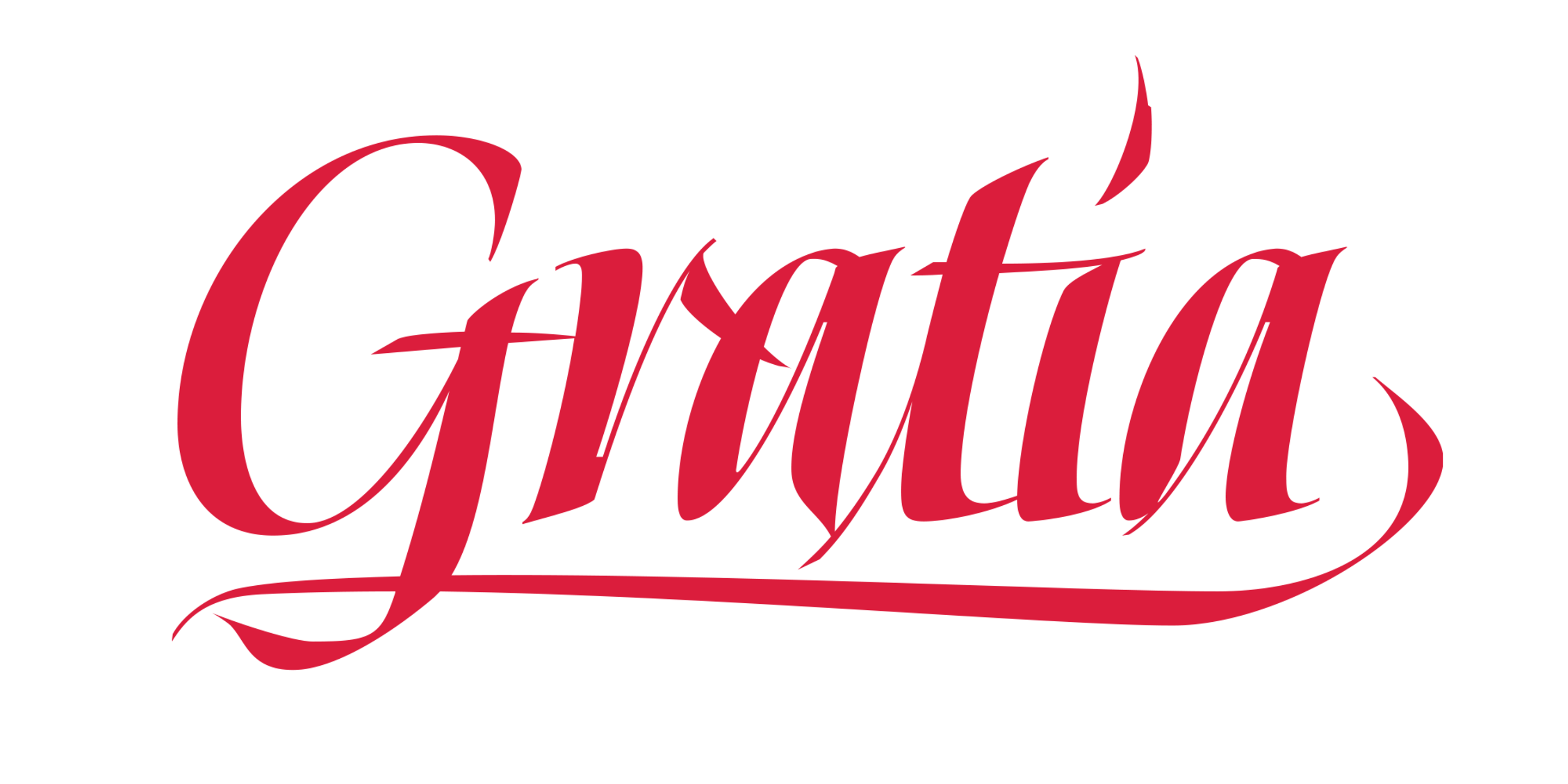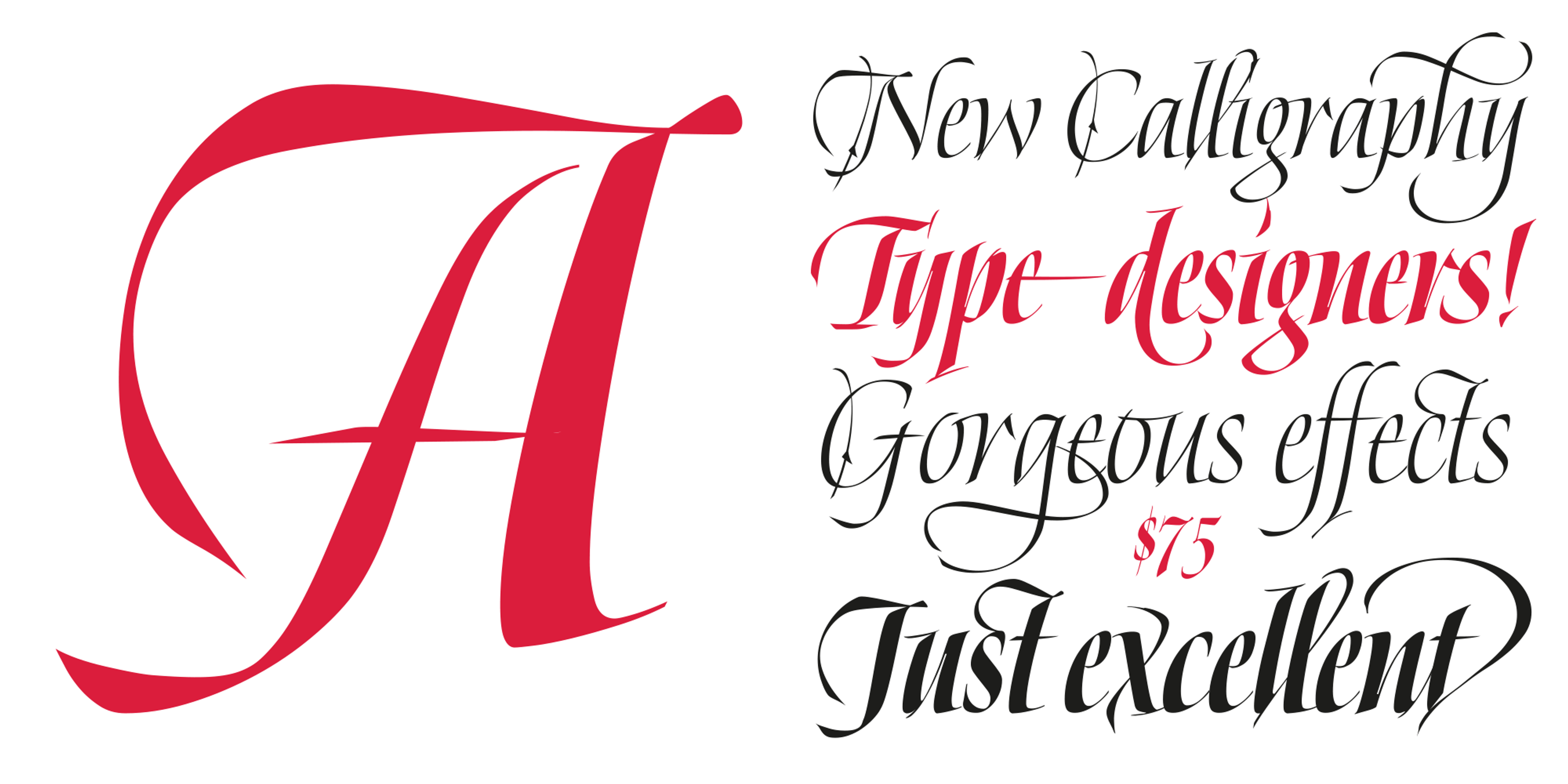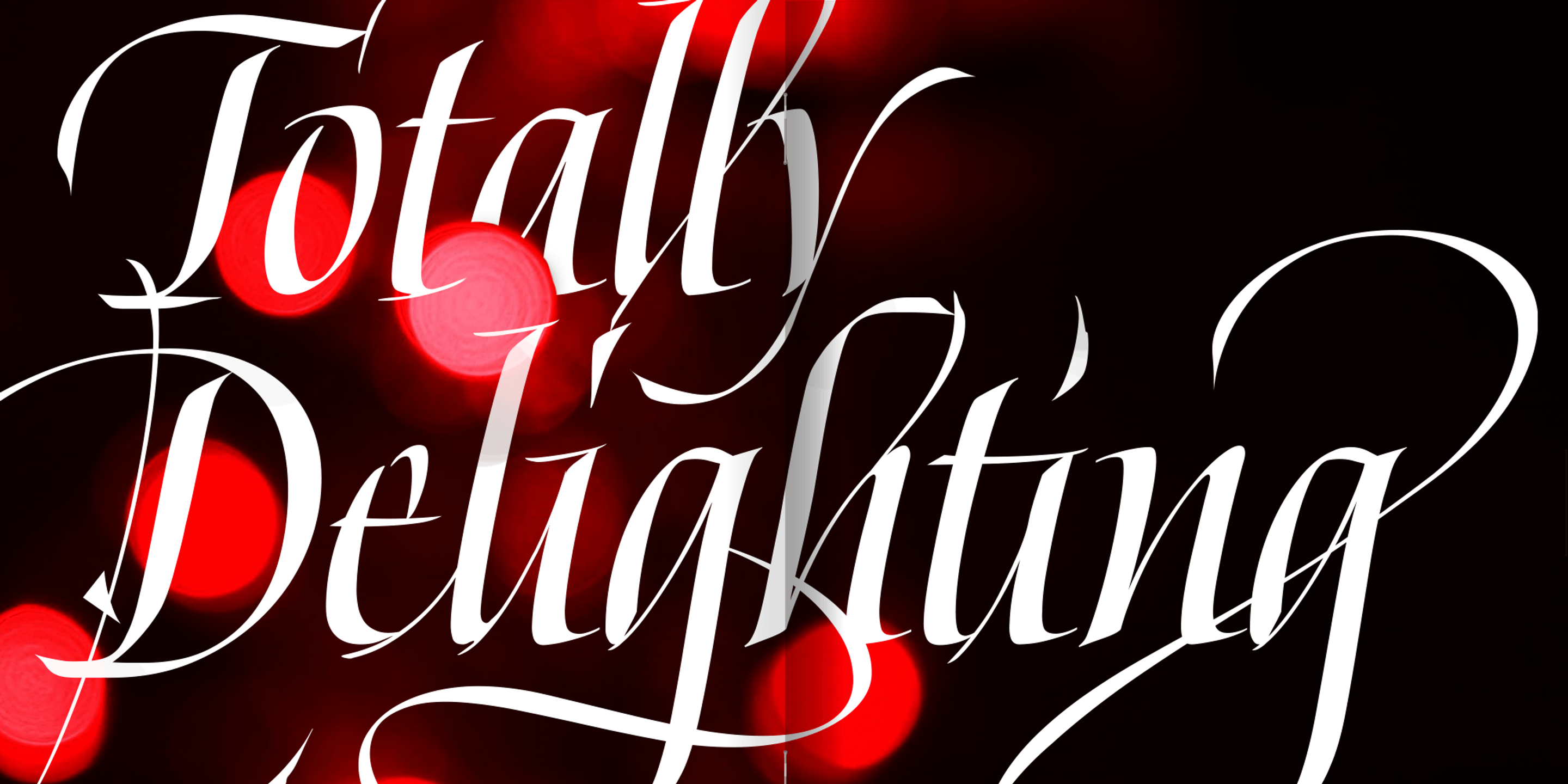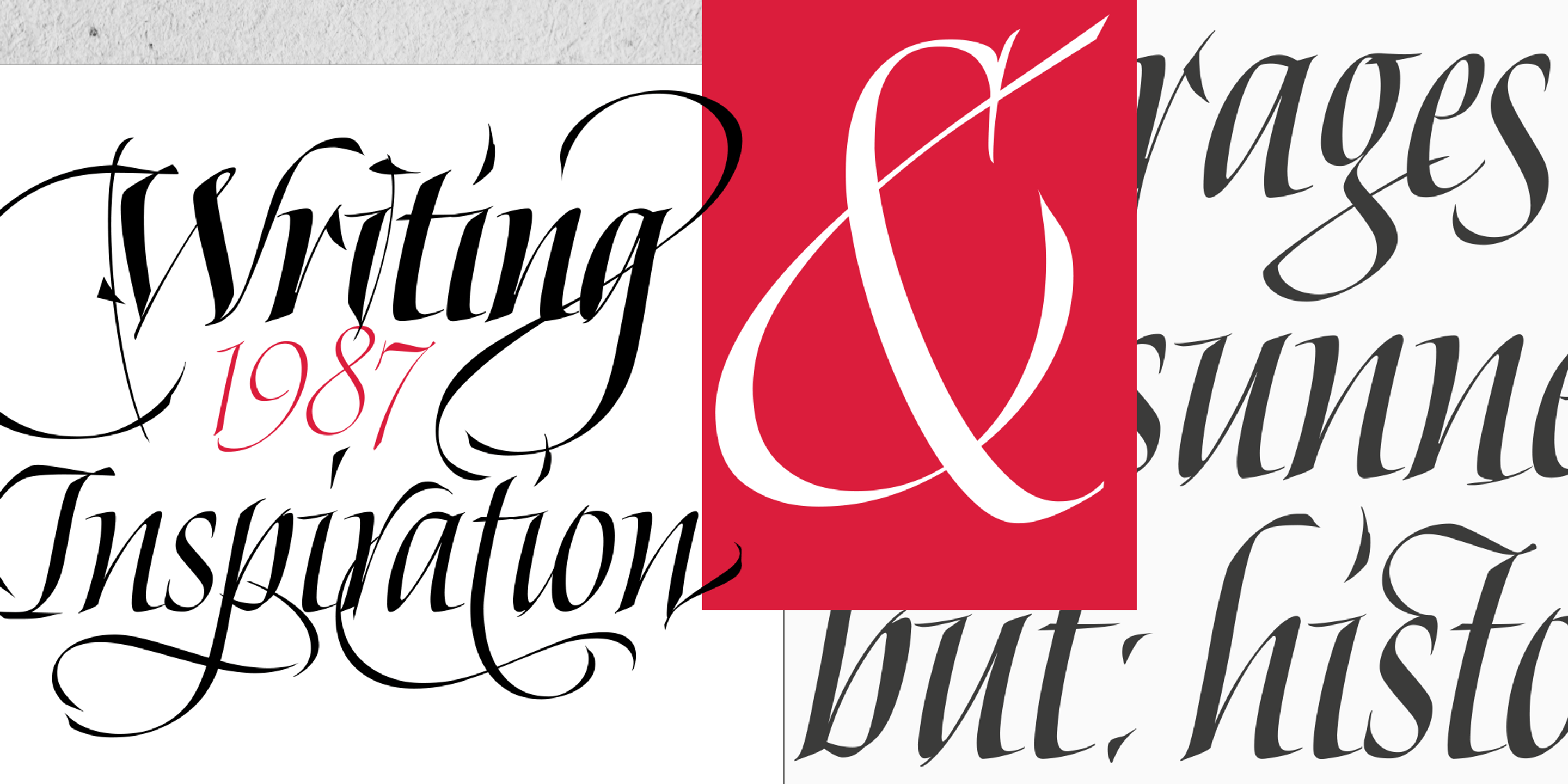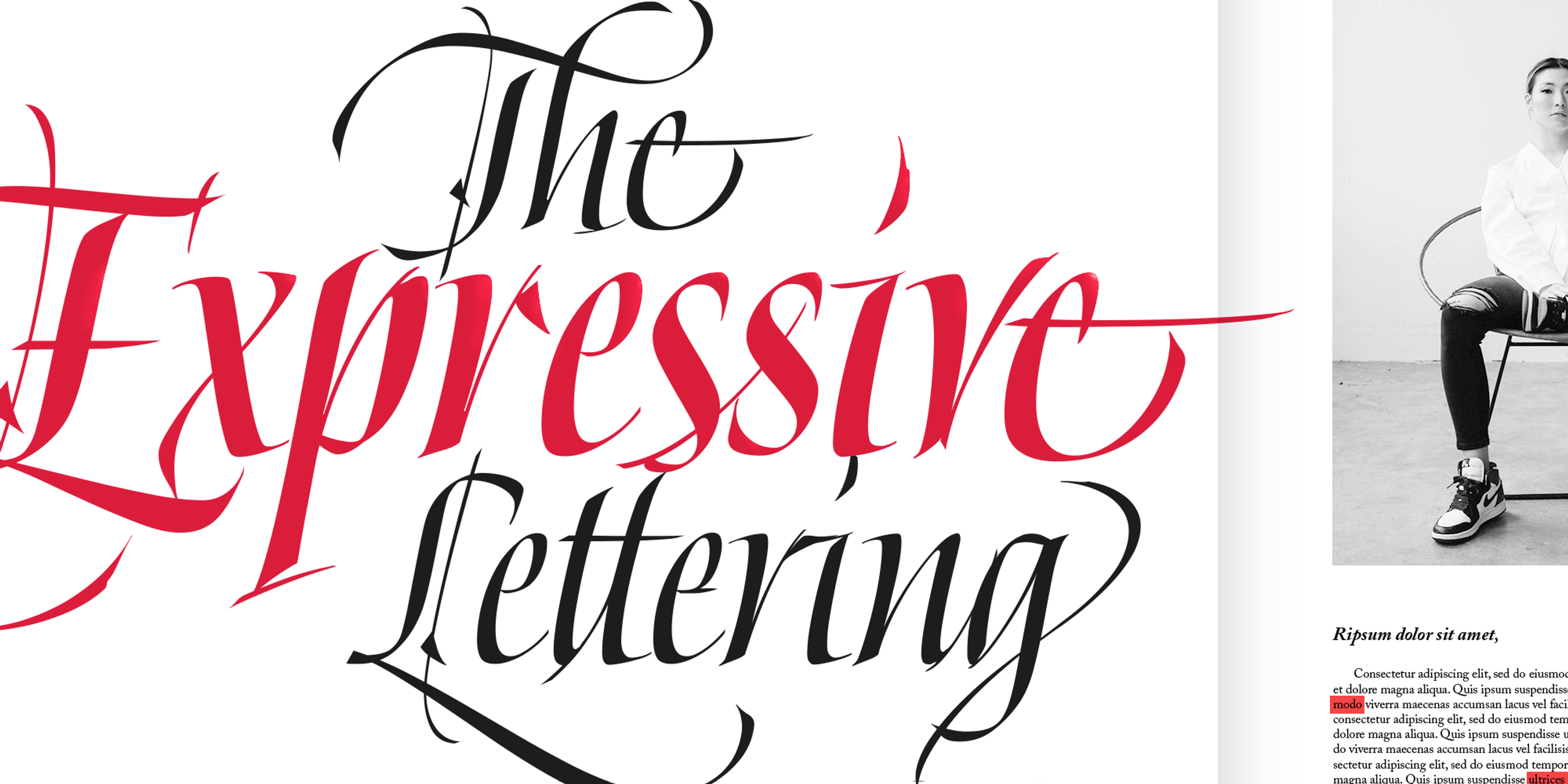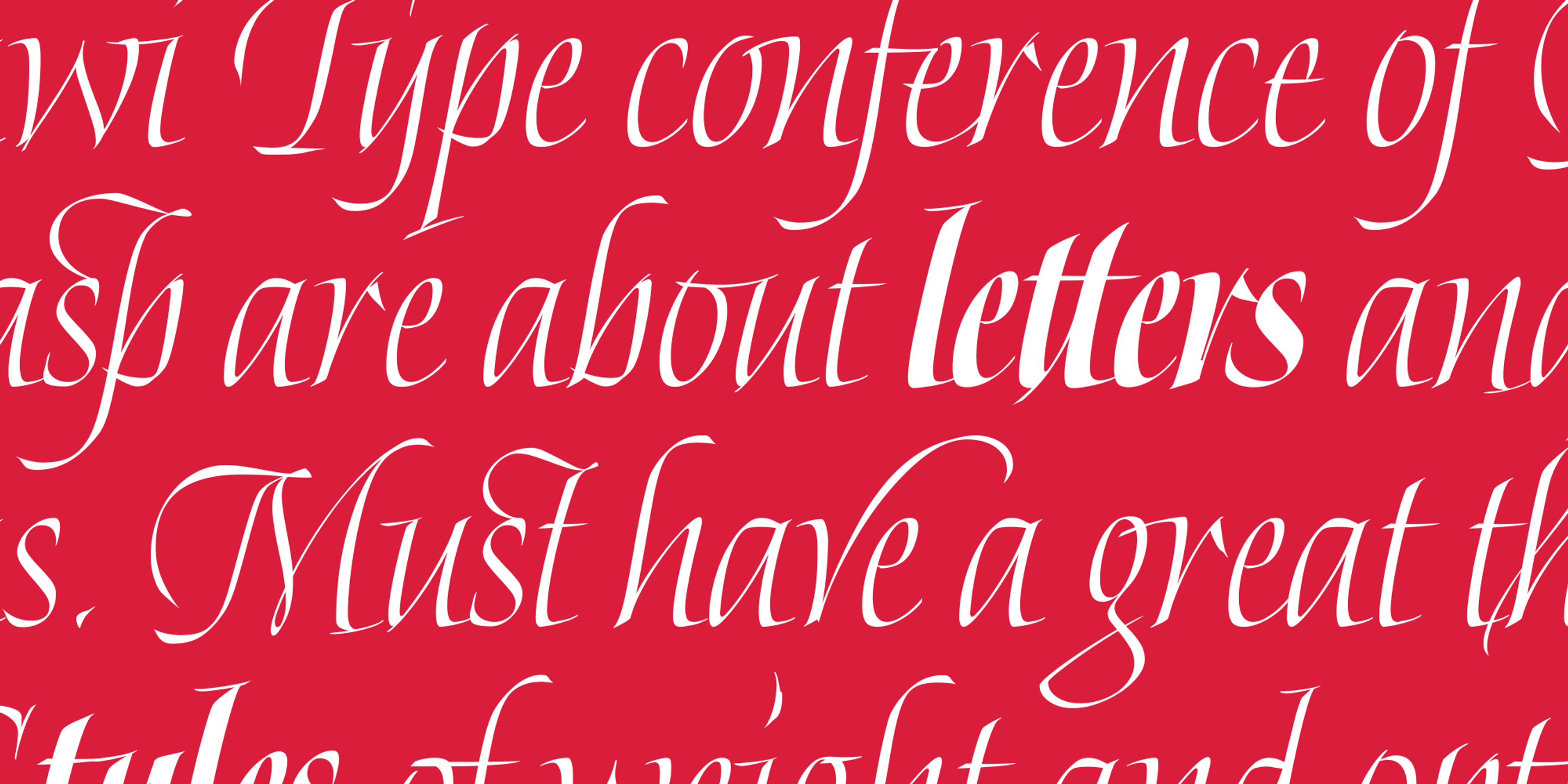
Gratia font by Sproviero Type — the word “Gratia” in a red, high-contrast, connected script with an acute accent over the “i” and a long, elegant swash extending from the final “a.”
Gratia font by Sproviero Type — the word “Happiness” in a white, high-contrast, connected script, with a woman in a striped shirt and red skirt cheering behind it
Gratia font by Sproviero Type — a large red uppercase A in a high-contrast script, and several lines of black and red italic script text including “New Calligraphy” and “Type-designers!”
Gratia font by Sproviero Type — the words “Totally Delighting” in a high-contrast connected script, with red bokeh lights in the background
Gratia font by Sproviero Type — the words “Writing” and “Inspiration” in a black connected script, the numbers “1987” in a smaller red script, and a large white ampersand on a red square, overlapping with “rages,” “sunne,” and “but: histo” in a dark gray italic serif.
Gratia font by Sproviero Type — the word “Flourishes” in a high-contrast connected script with elaborate swashes, set against a backdrop of snow-capped mountains under a red sky
Gratia font by Sproviero Type — the words “The Expressive Lettering” in a high-contrast connected script, with “Expressive” in red and the other words in black
Gratia font by Sproviero Type — white italic script lettering on a red background, with words including “Type conference of”, “are about letters and”, and “Must have a great th”
Gratia font by Sproviero Type — the word “Fervent” in white italic script above a torn paper edge, and the word “Calligraphy” in black italic script below it
Gratia is a mesmerizing blend of serenity and intensity in a script. With its angular curves, it takes cues from the timeless elegance of Cancelleresca calligraphy. The typeface is infused with Sproviero’s unmistakable expressiveness and sense of movement as it embodies speed, sophistication, and versatility. Its extensive range of alternates provides ample opportunities for creative exploration. From fashion spreads to international brands, Gratia adds a touch of elegance to every project.
Stylistic Set 19
Stylistic Set 20
Titling
Medial Forms
Final Forms